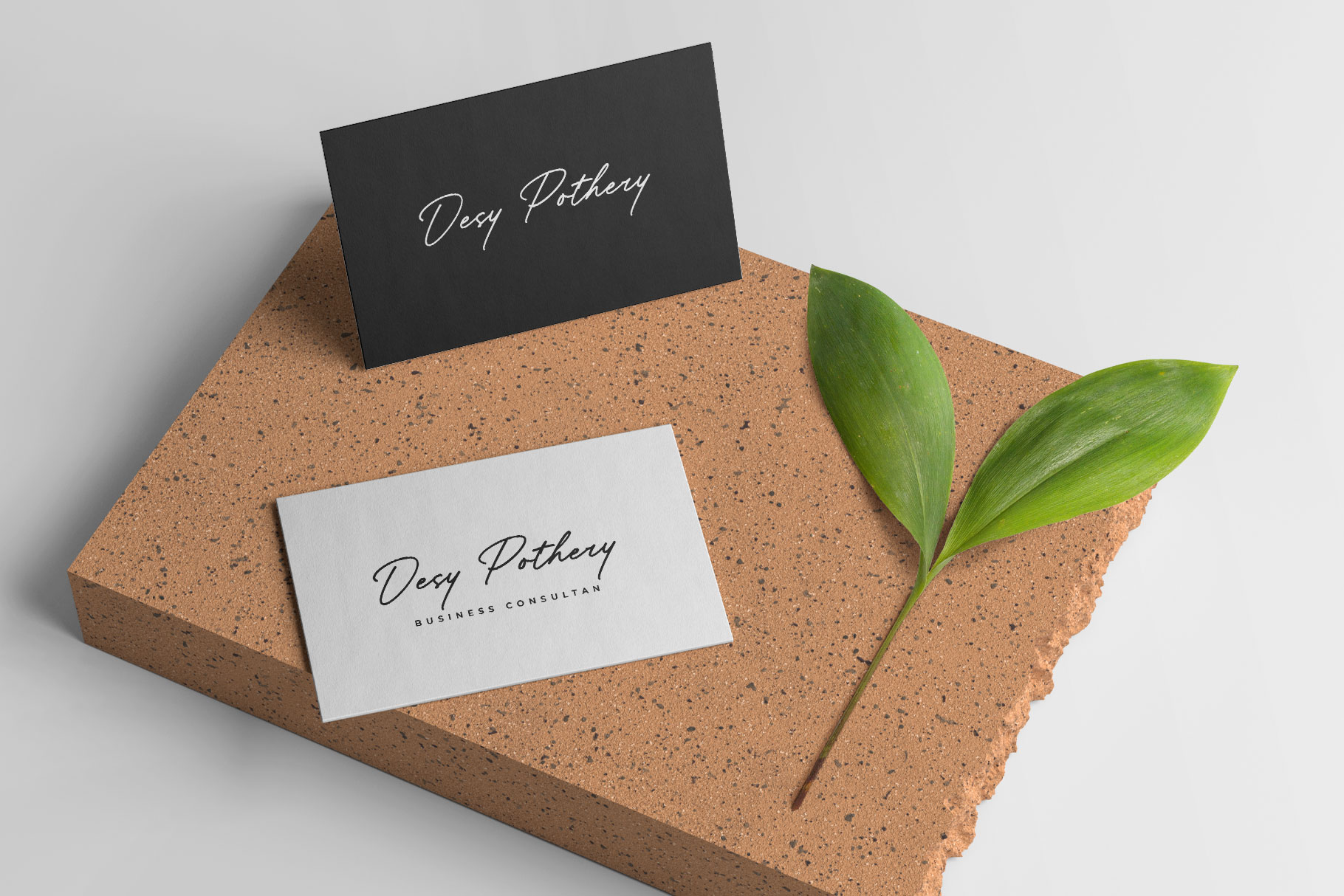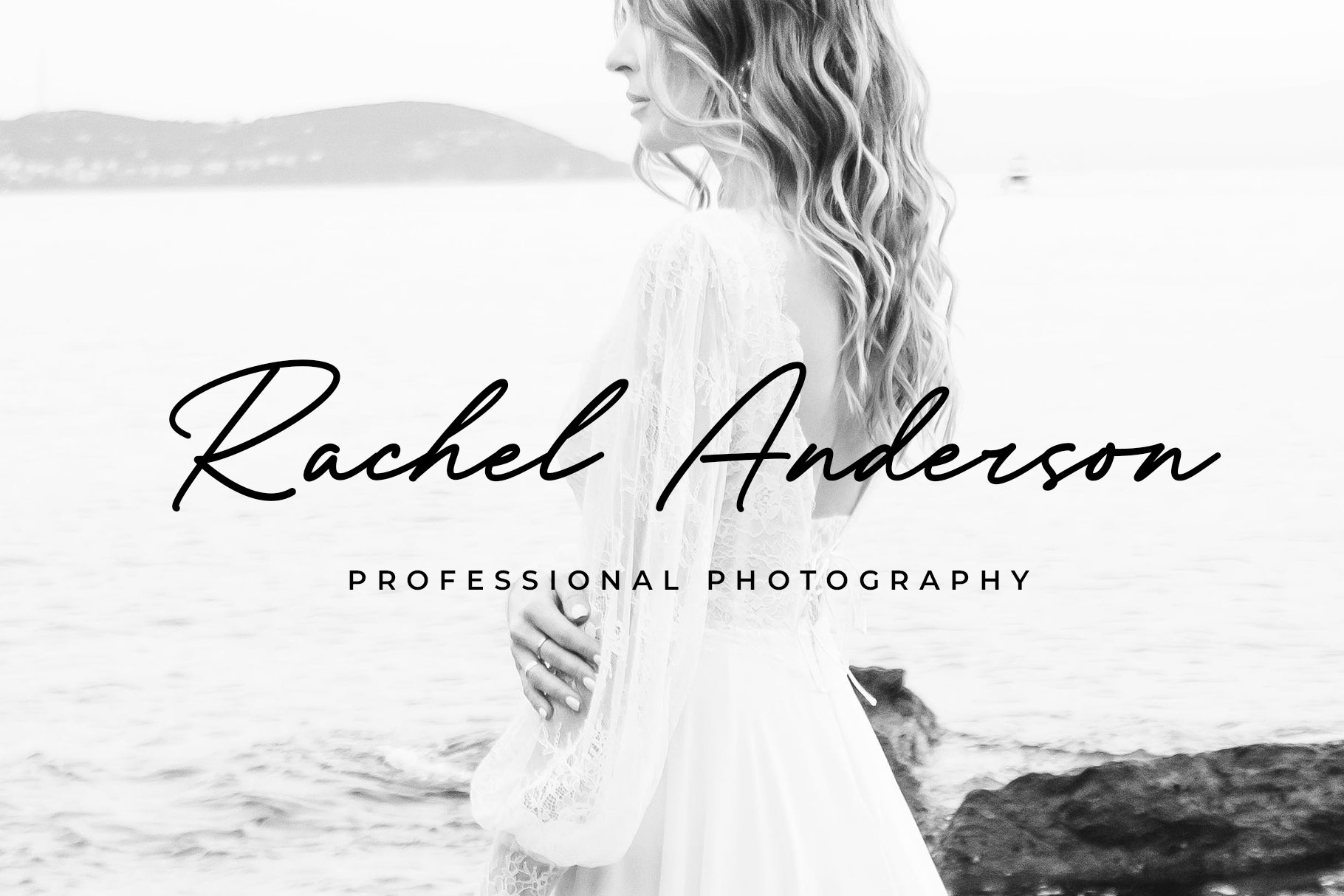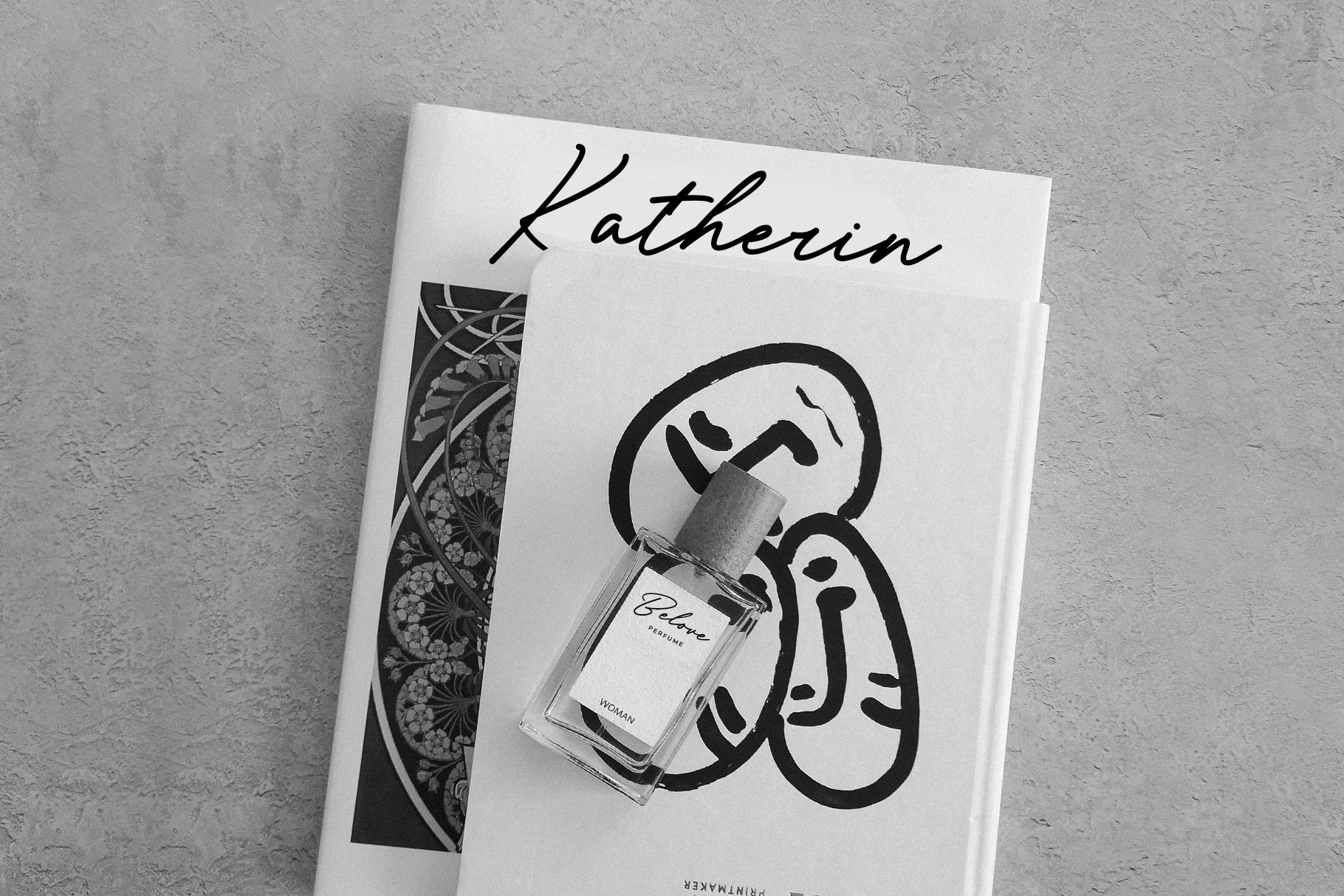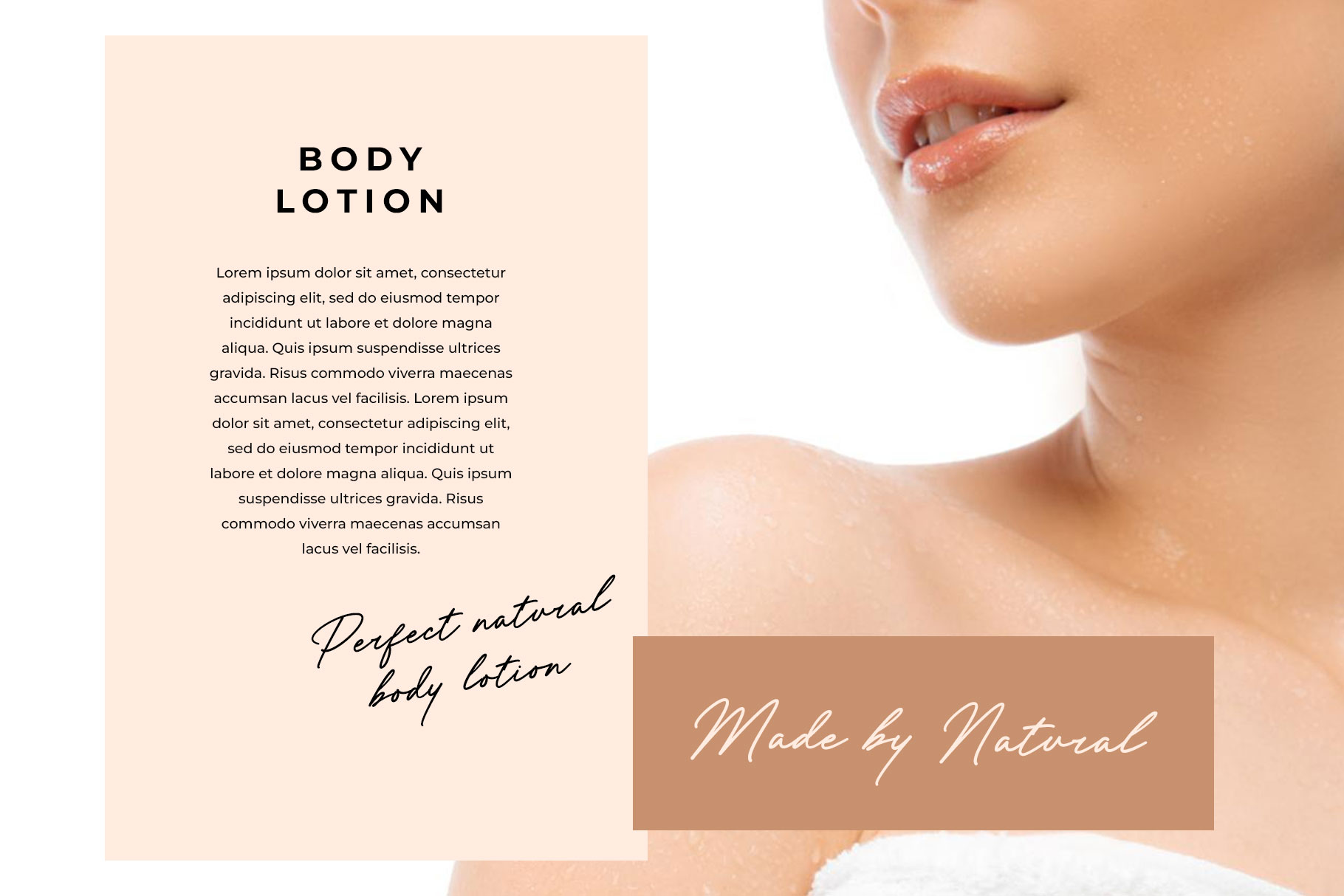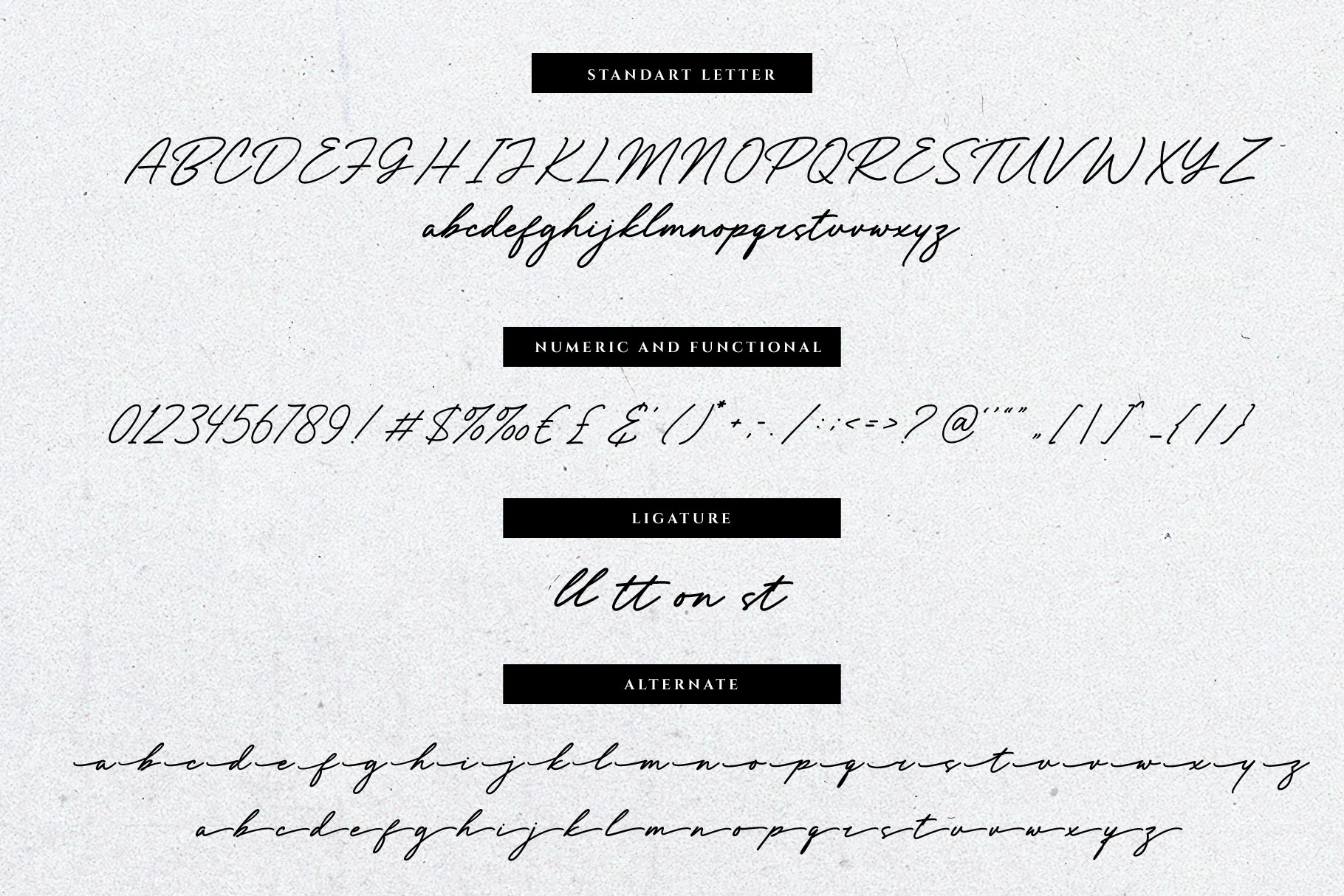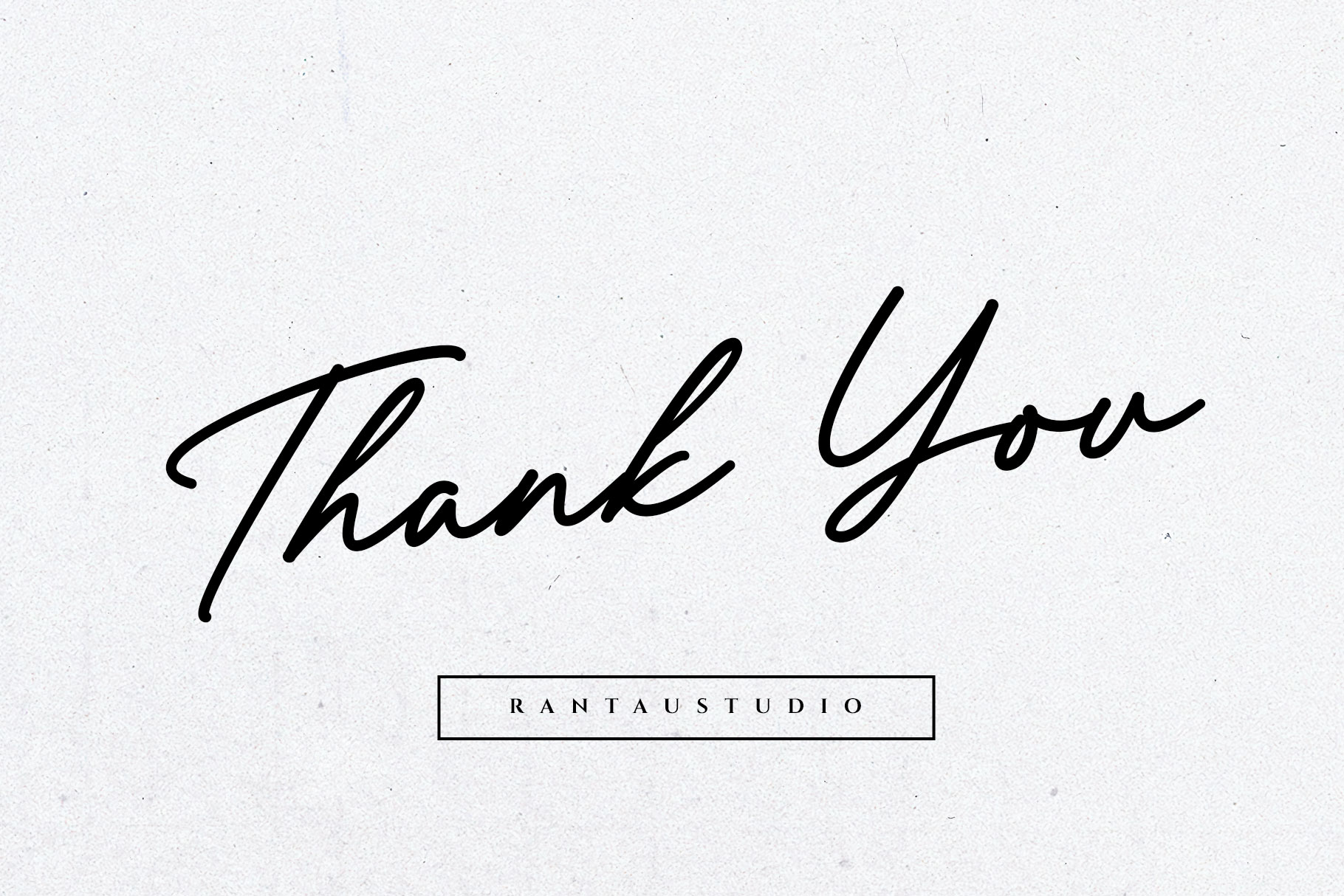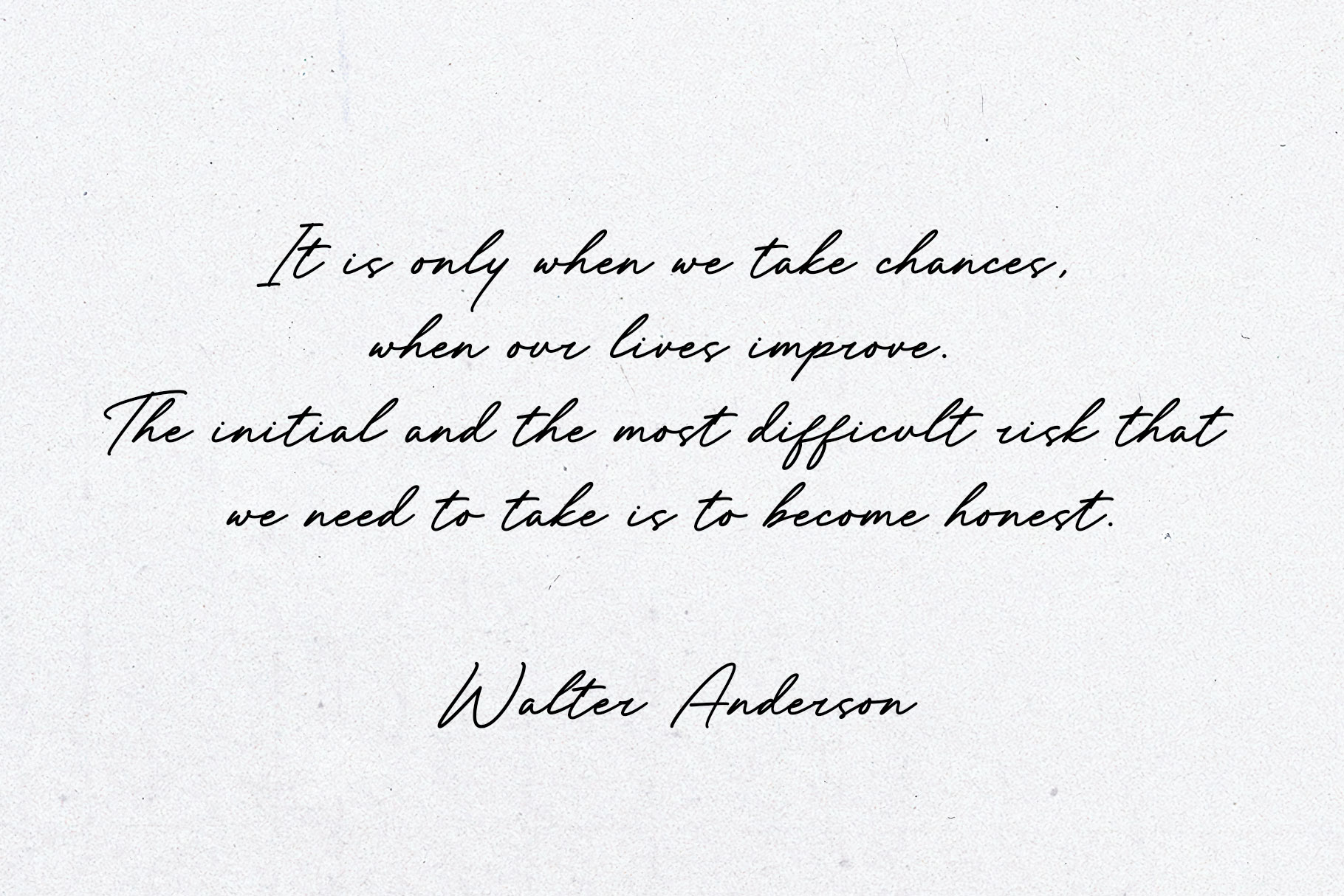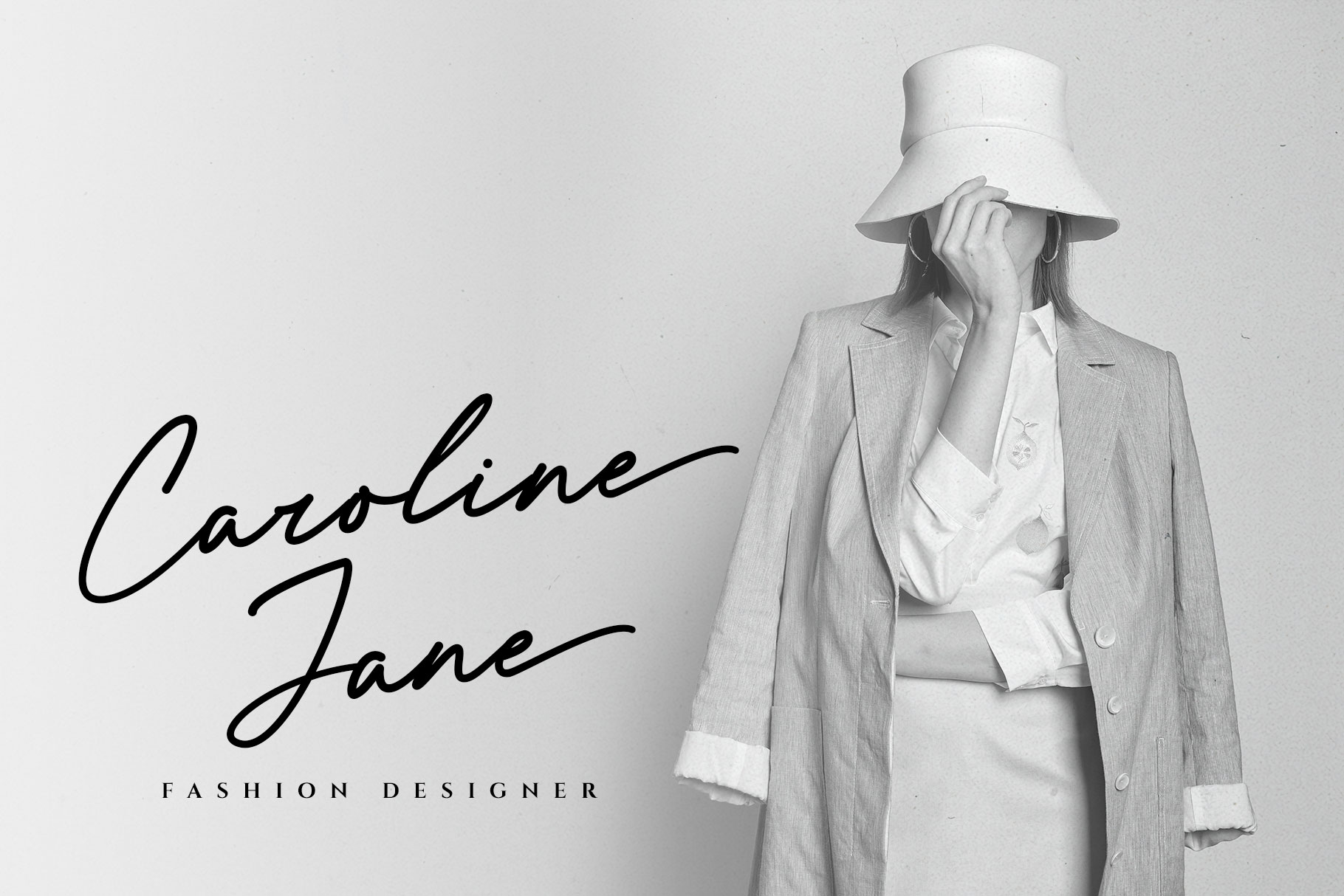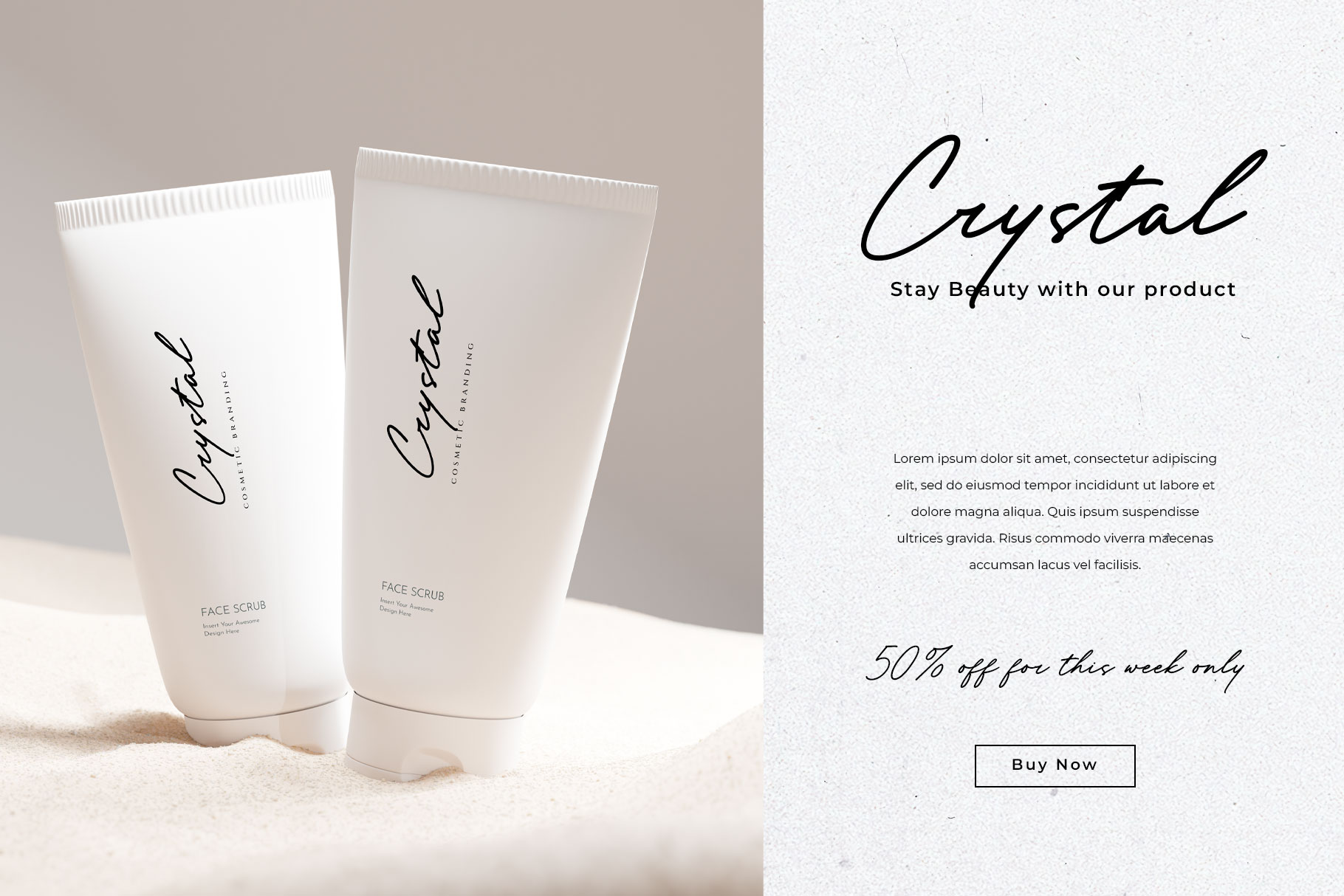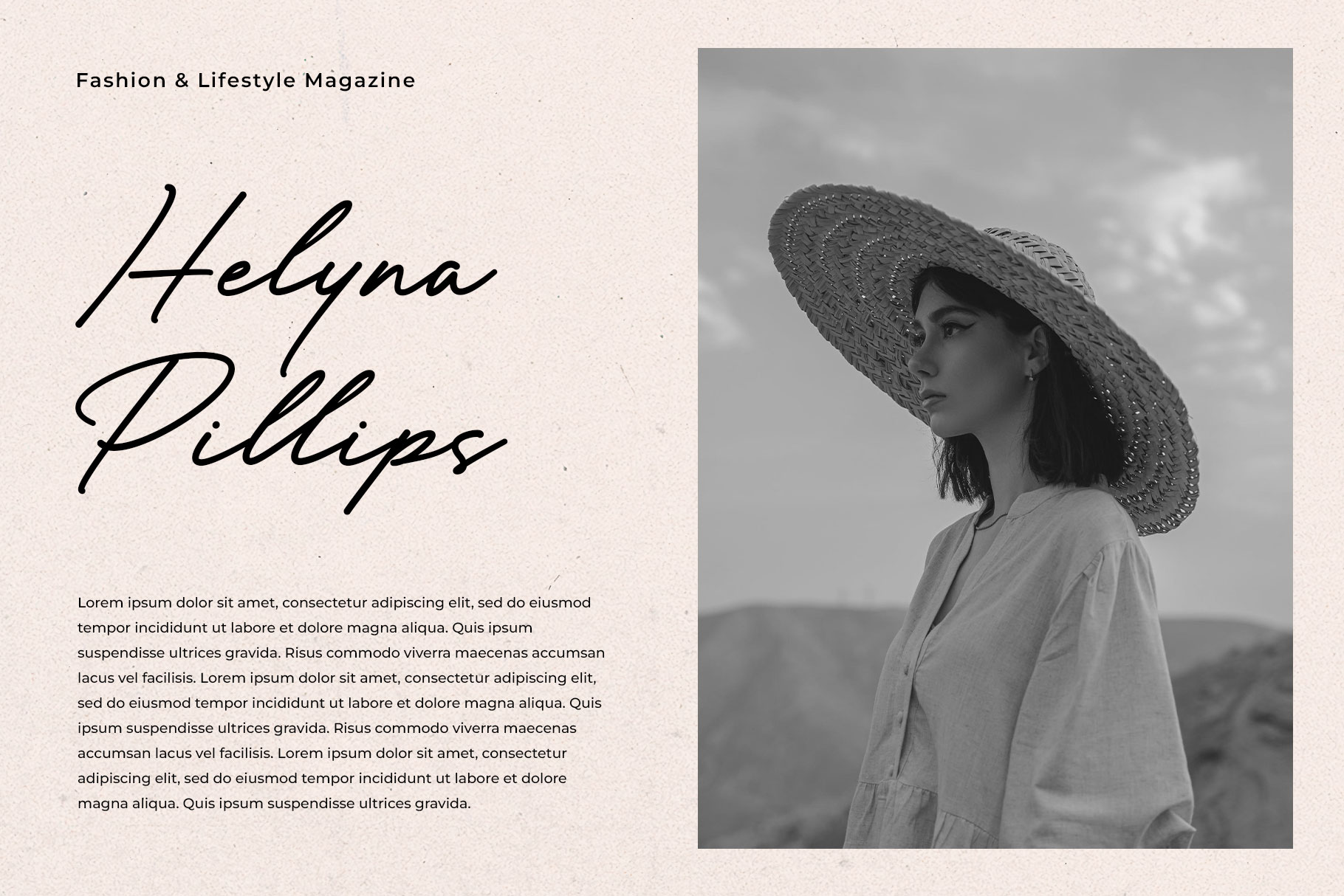
Beyonest Signature Font
Beyonest is creative signature business font which can be interpreted professional with stylish and natural curve. We keep this font looks modern, minimalist, elegant, readable, stylish, catchy and easy to use. Beyonest come with ligature, alternate and multilingual accent support.
Beyonest is a beautiful choice for any creative endeavor, chic, lifestyle design such as logos, title, watermark on photography, cover, branding, display and magazine, wedding event, quotes, album cover, business card, corporate, business project and many other design project. Beyonest to elevate you branding!!